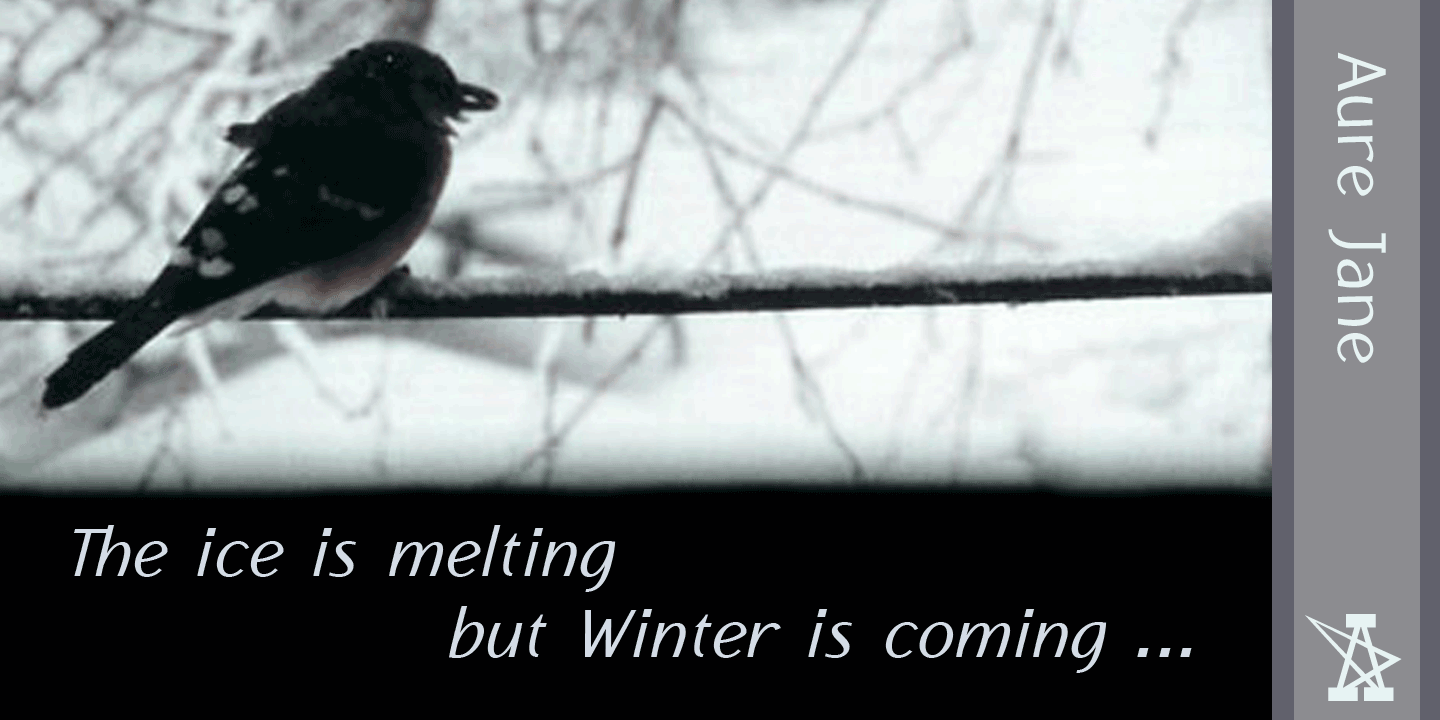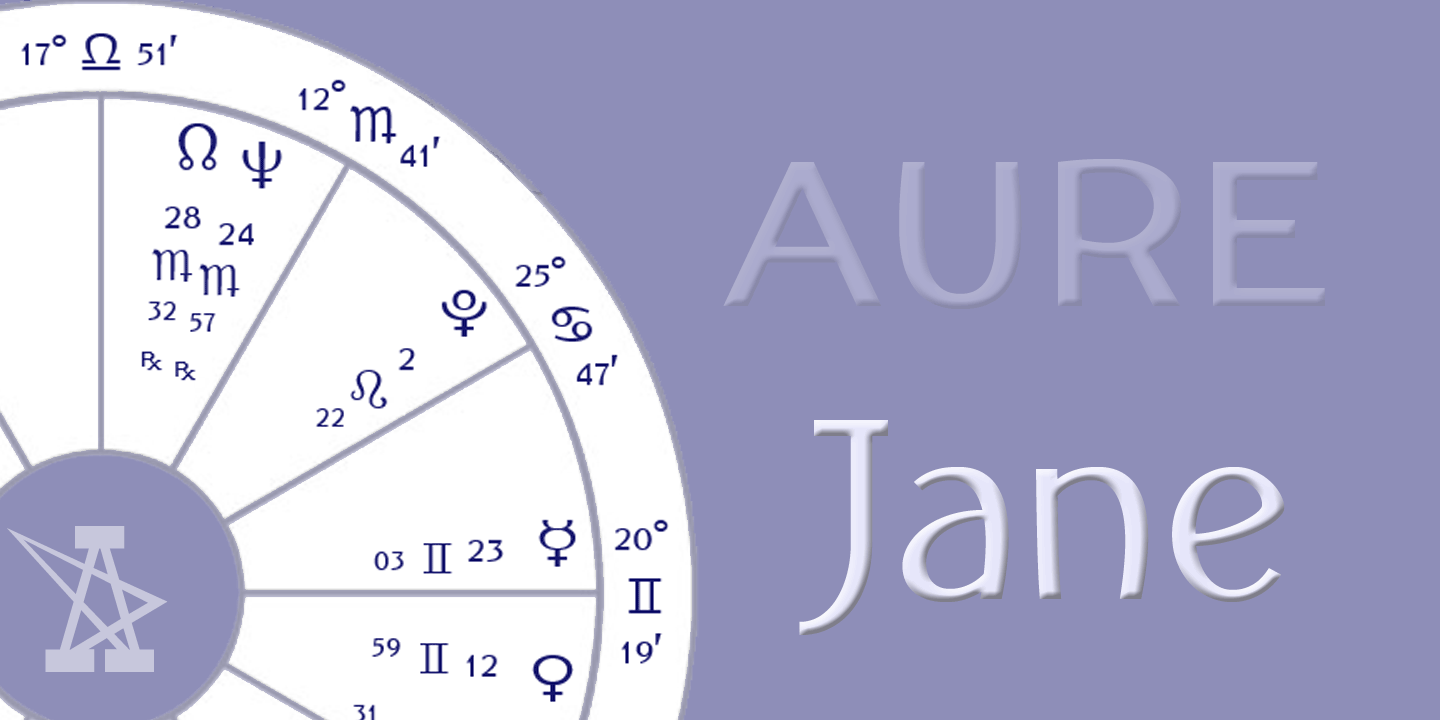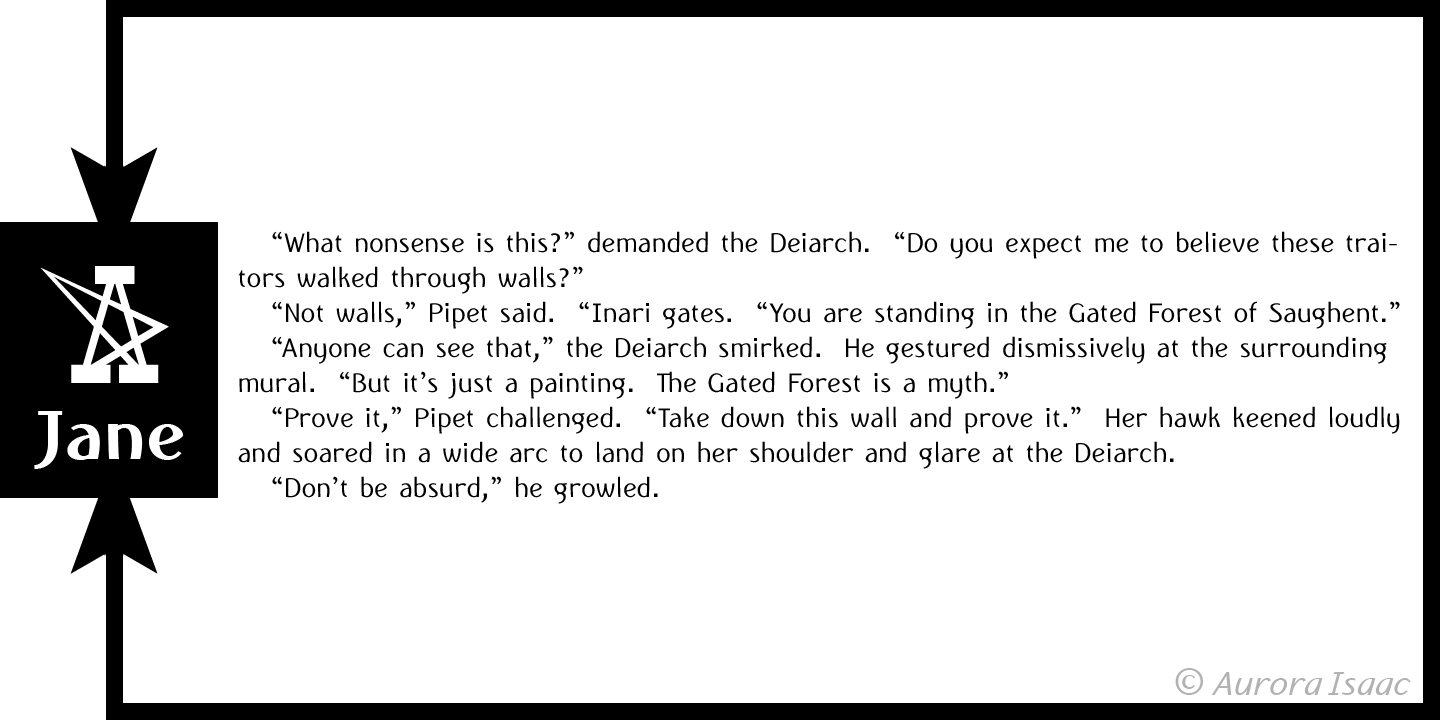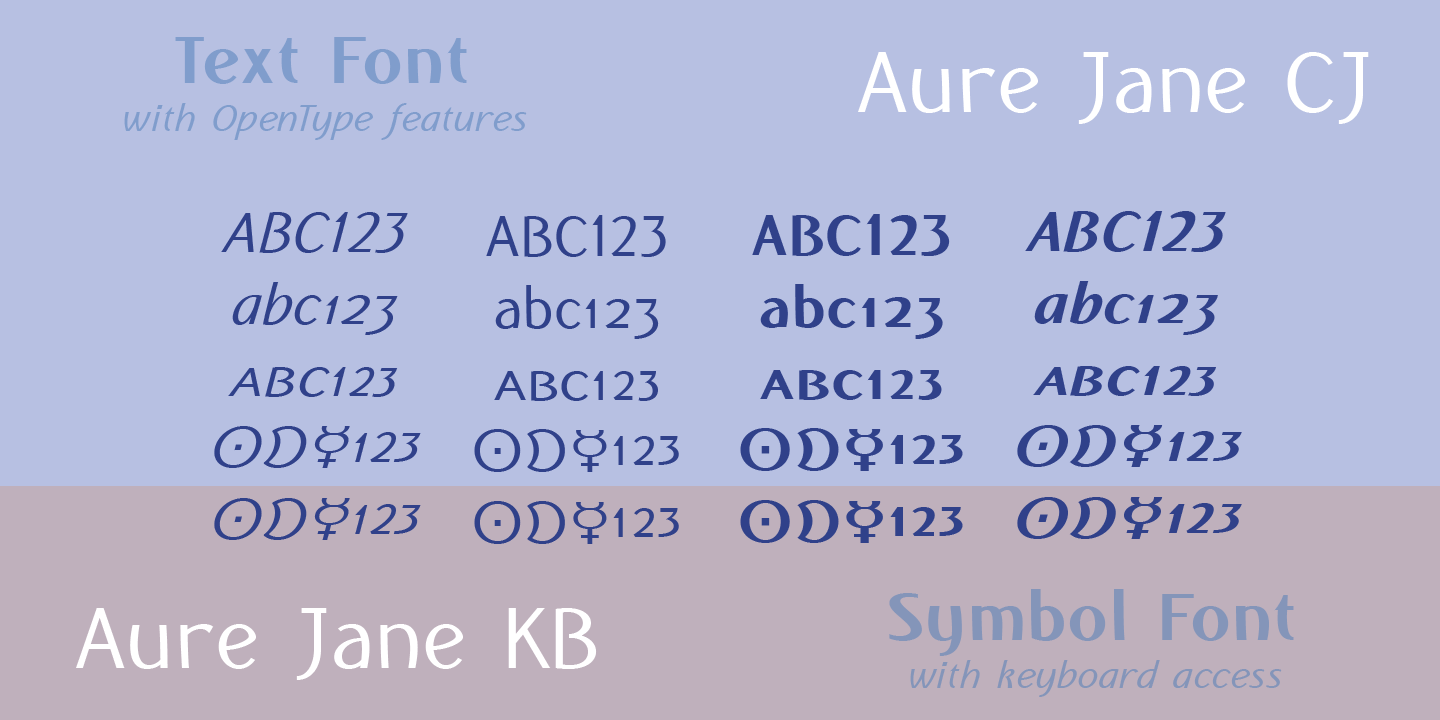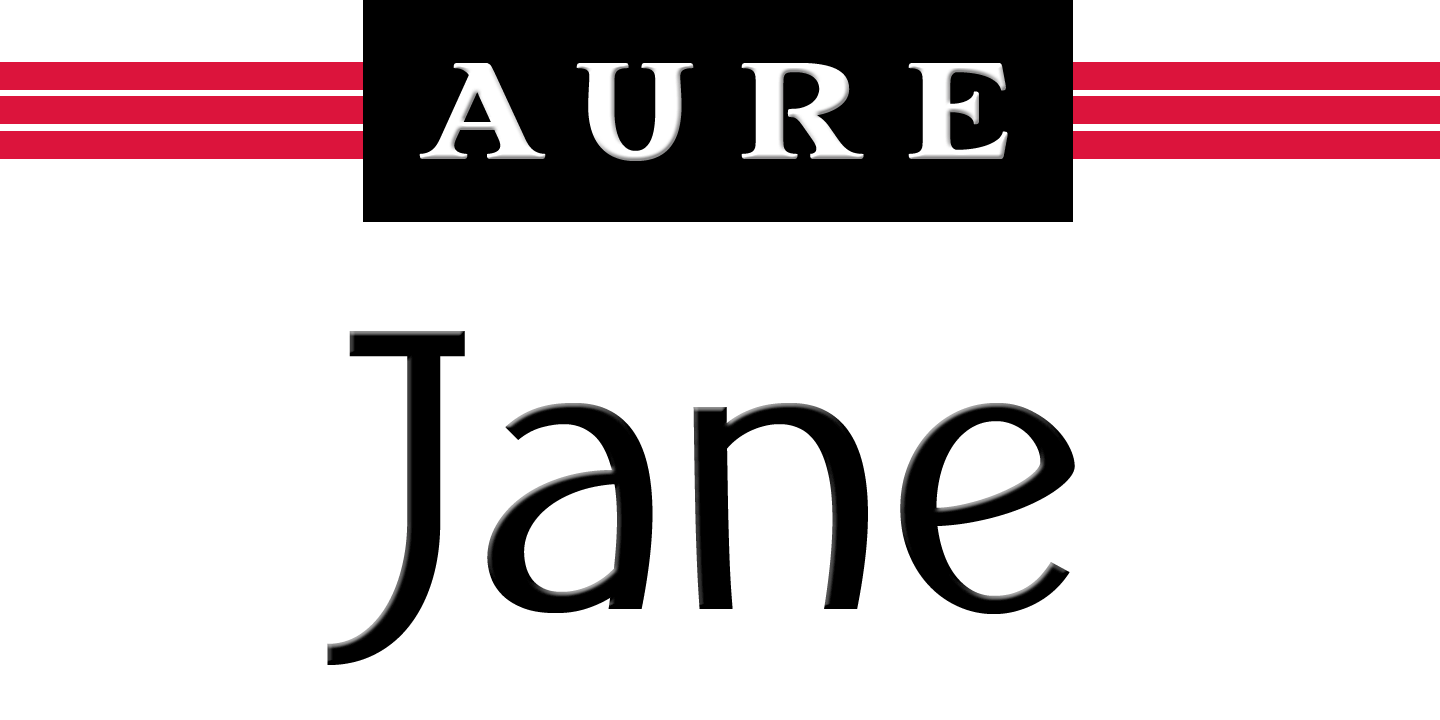
Aure Jane defines grace under fire. These clean, sans-serif forms engage the reader with a subtext of trust. Jane’s excellent legibility will stand up under almost any typographic challenge, bringing confidence to text and titles, and clarity to astrological expressions and chartwheels. Jane is an original design developed by Aurora Isaac. After more than a decade in development, 2018 marks the first release of the CJ and KB glyphsets in regular, italic, bold, and bold-italic. The CJ glyphset is a full text font supporting a variety of European languages. A matching set of small-caps complements the extended lowercase and uppercase glyphsets. Supporting glyphs include standard ligatures, four variations of the ampersand, and check-mark and happy-face with their companions x-mark and grumpy-face. Numbers are available in lining, oldstyle, and small versions, with numerators and denominators for forming fractions. Companion glyphs include Roman numerals, specialized glyphs for indicating ordinals, and a variety of mathematical symbols and operators. The CJ glyphset also includes an extended set of glyphs for typesetting Western Astrology. These glyphs are also available separately in the KB glyphset: a symbol font re-coded to allow easy keyboard access for the most commonly used glyphs. In addition to Aure Jane’s versatility as a text font, Jane can enhance the message of other designs. Aure Jane pairs well as an innocuous foil to any decorative font; Aure Sable, for example, will shine all the more beside Jane’s sensible utility. The witty highlights of Aure Brash will sparkle against Jane’s practicality. Give Aure Jane a trial run! You may discover a permanent place for this font family in your typographic palette. >> AureFontDesign.com